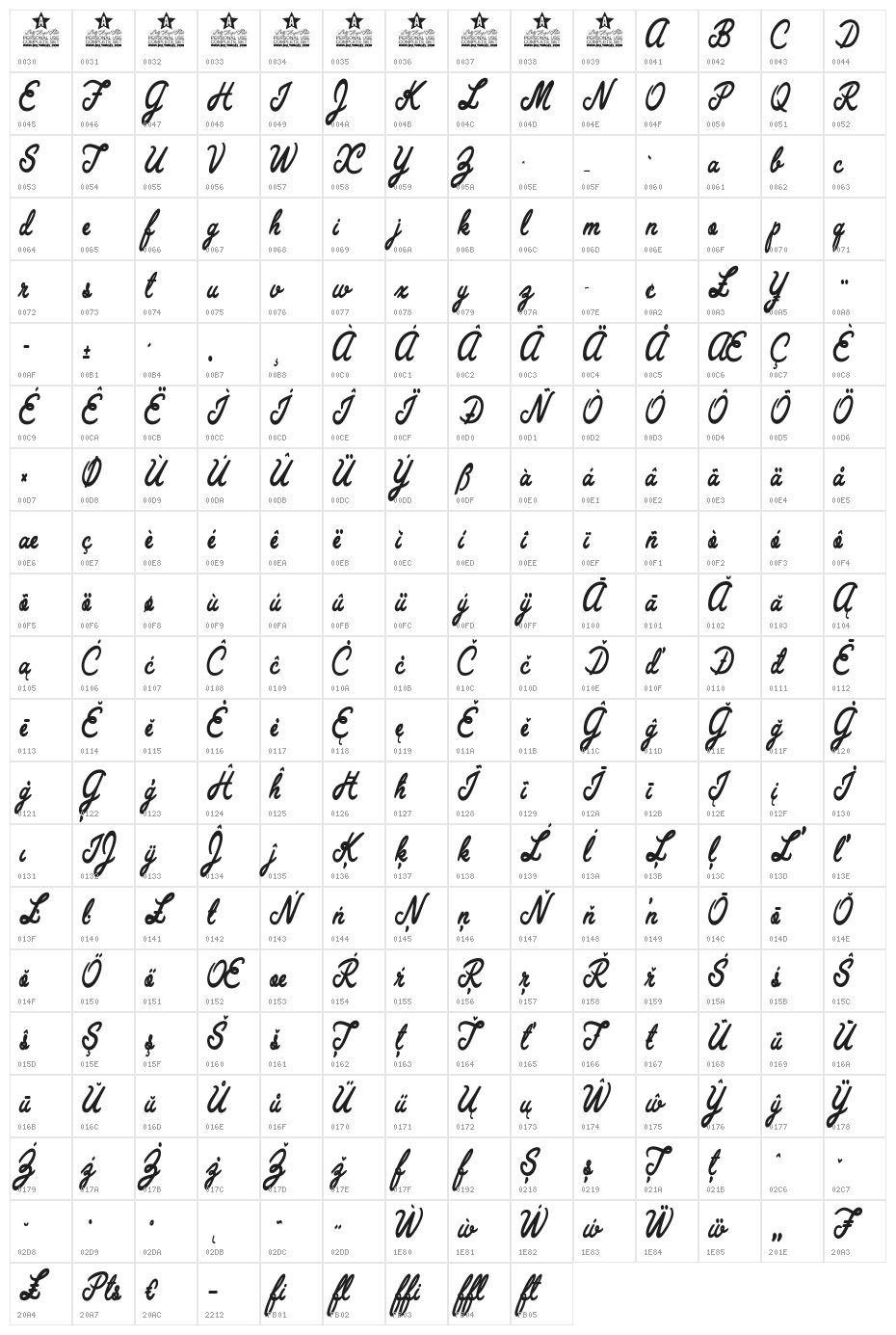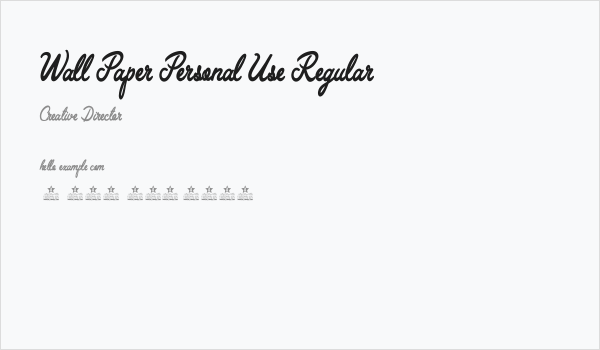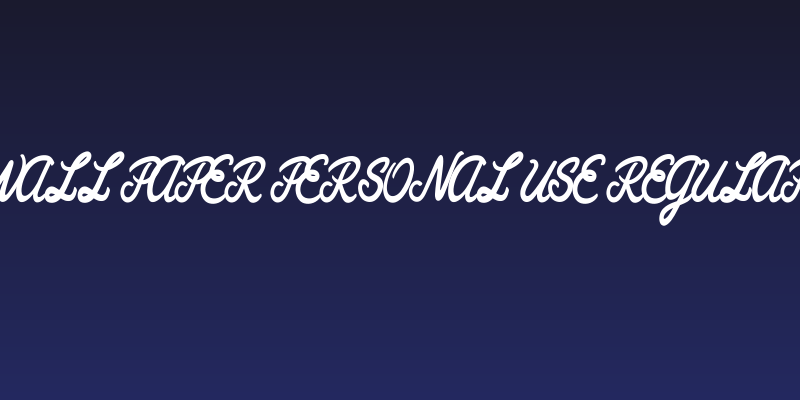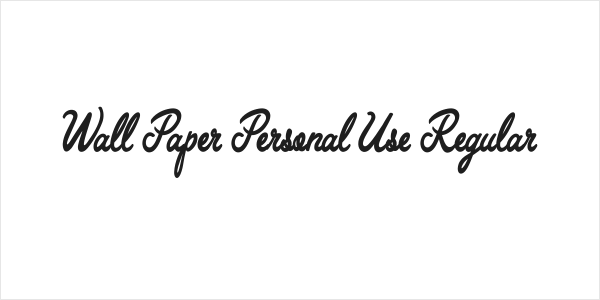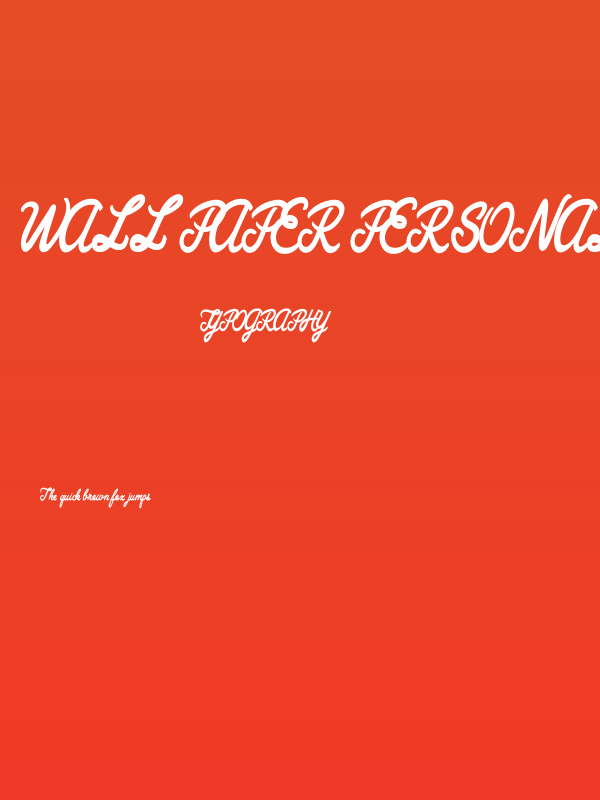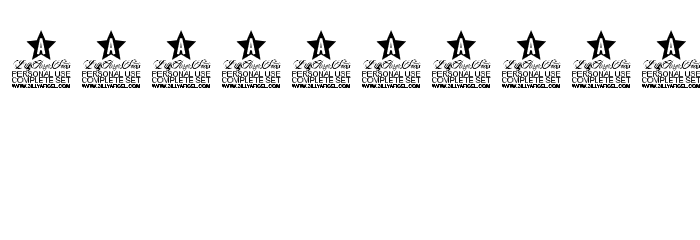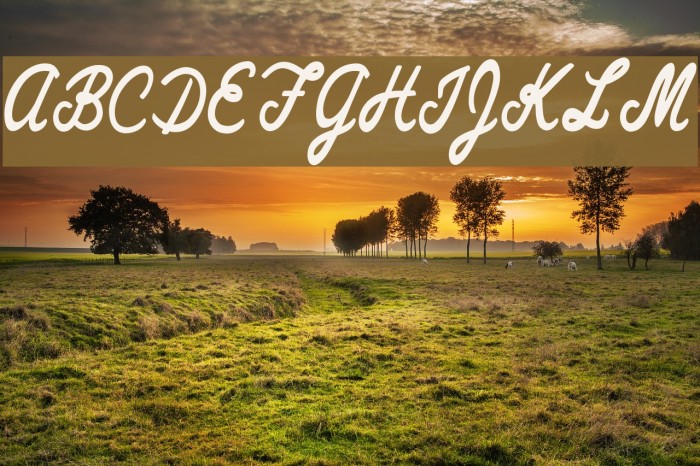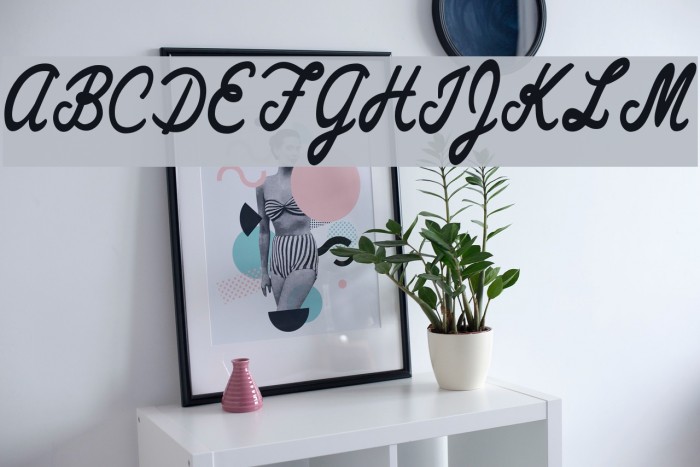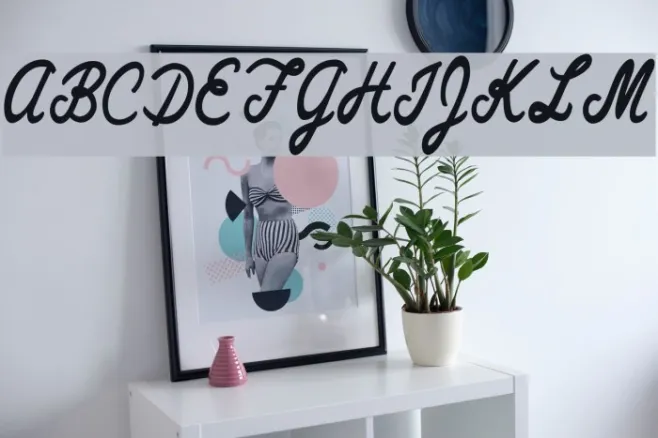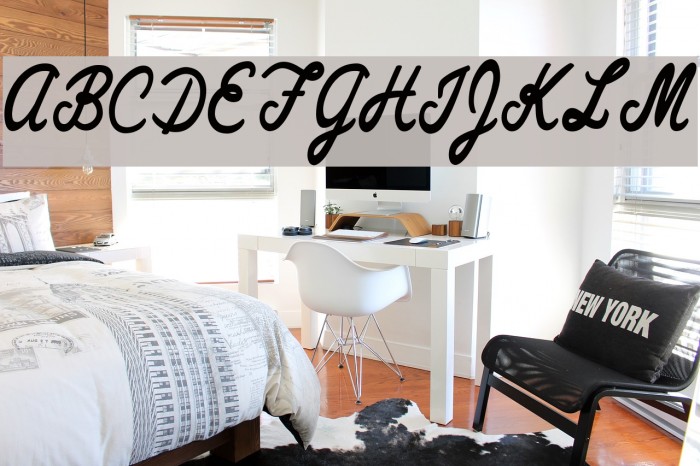
Wall Paper Personal Use Regular Font
Wall Paper Personal Use Regular Description
This font features a bold, cursive style with a flowing script that mimics elegant handwriting. The uppercase letters are slightly more ornate, with sweeping curves and loops, while the lowercase letters maintain a consistent, smooth flow. The font exudes a sense of sophistication and charm, making it ideal for projects that require a personal touch. The characters are well-spaced, ensuring readability while maintaining the decorative appeal. The overall design is cohesive, with a consistent stroke width that adds to its polished appearance.
| Proposed Projects | Ideal for wedding invitations, personal branding, greeting cards, and decorative signage. |